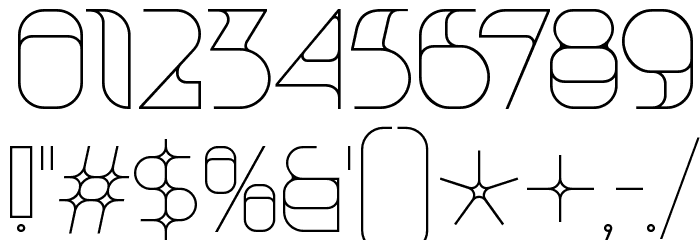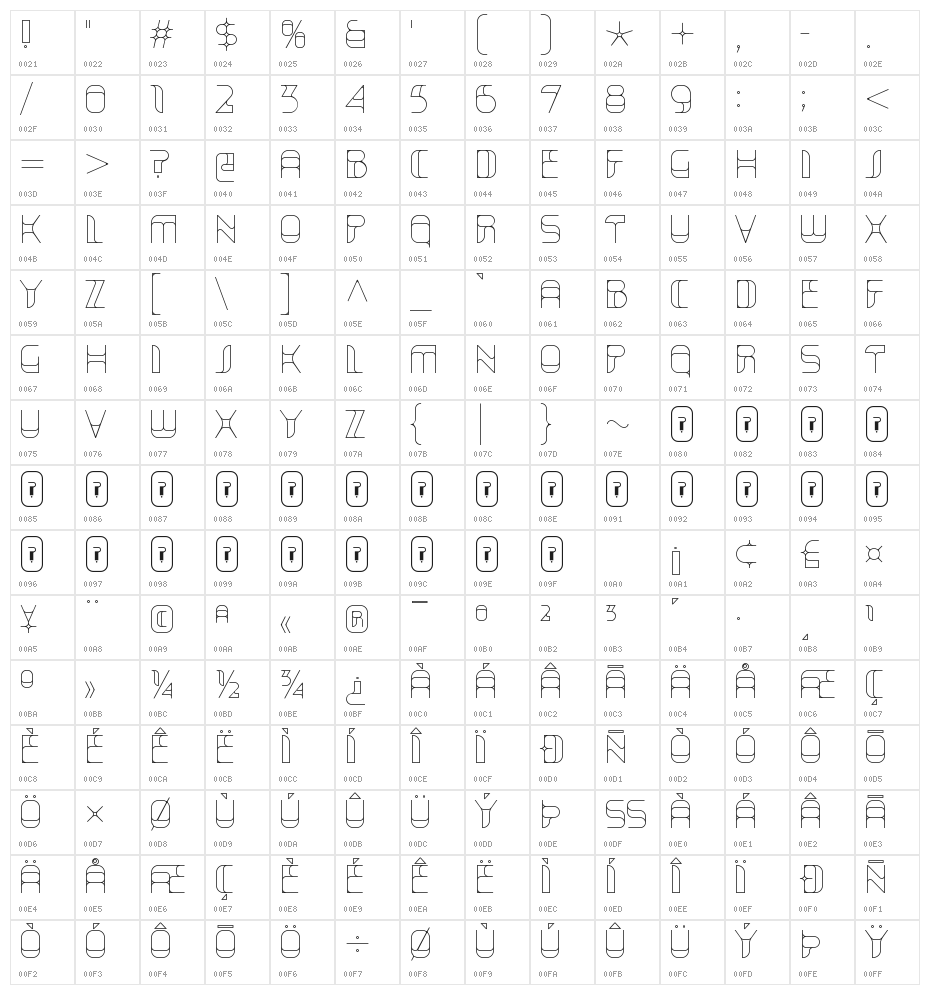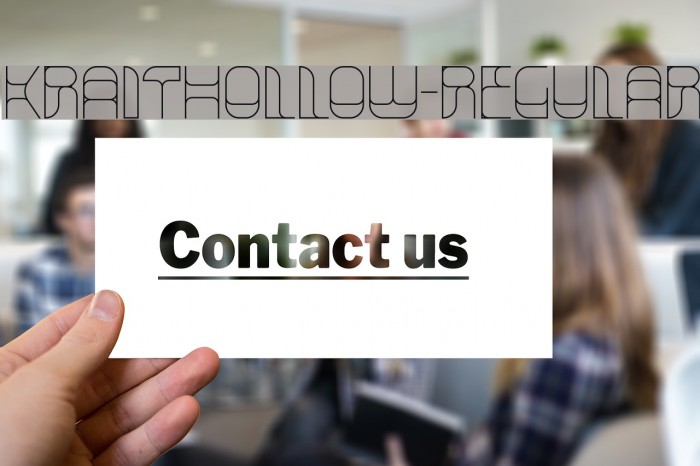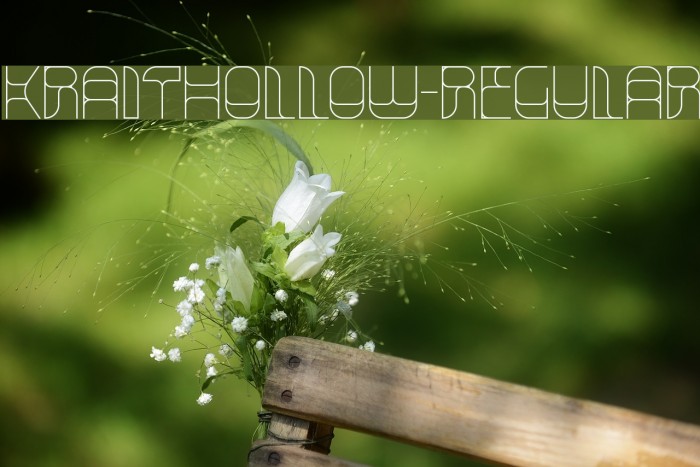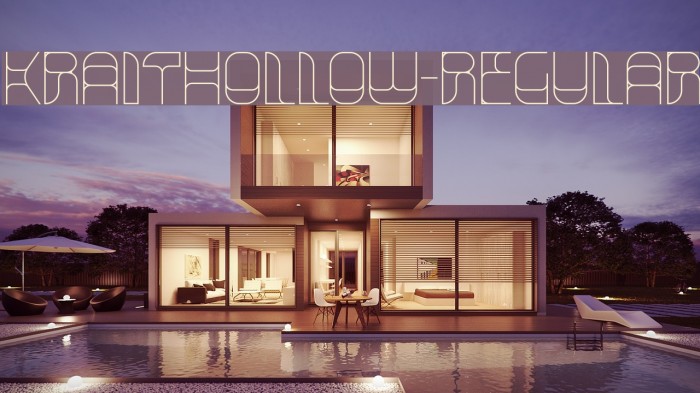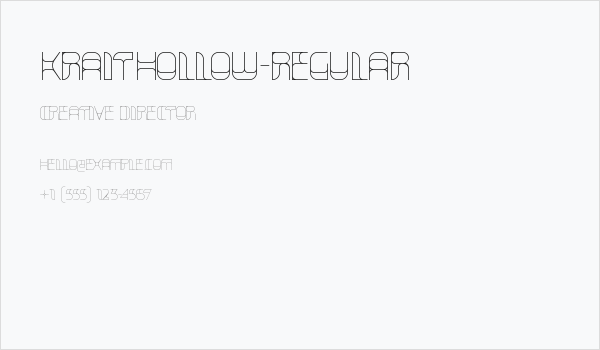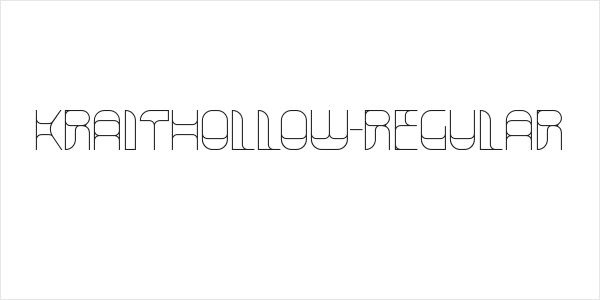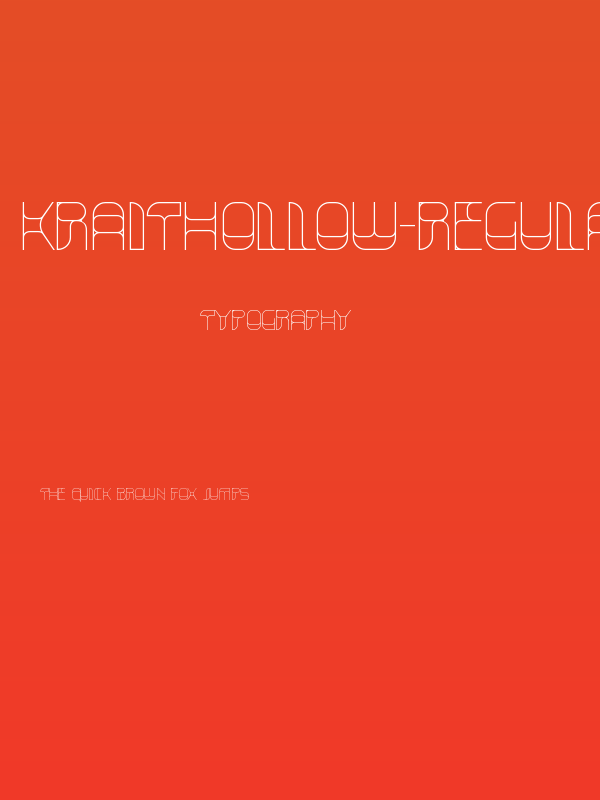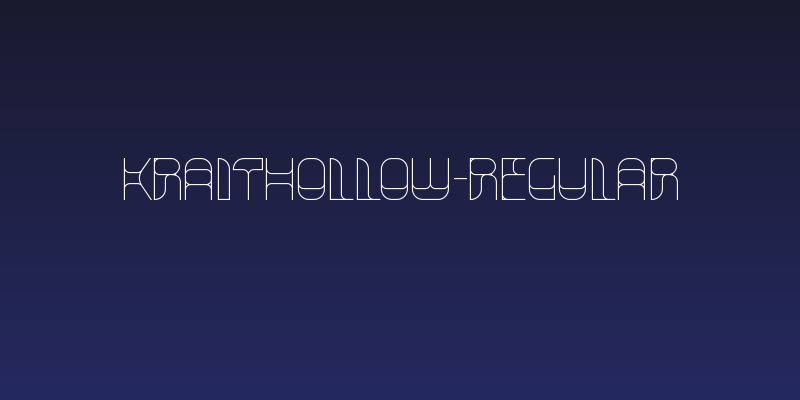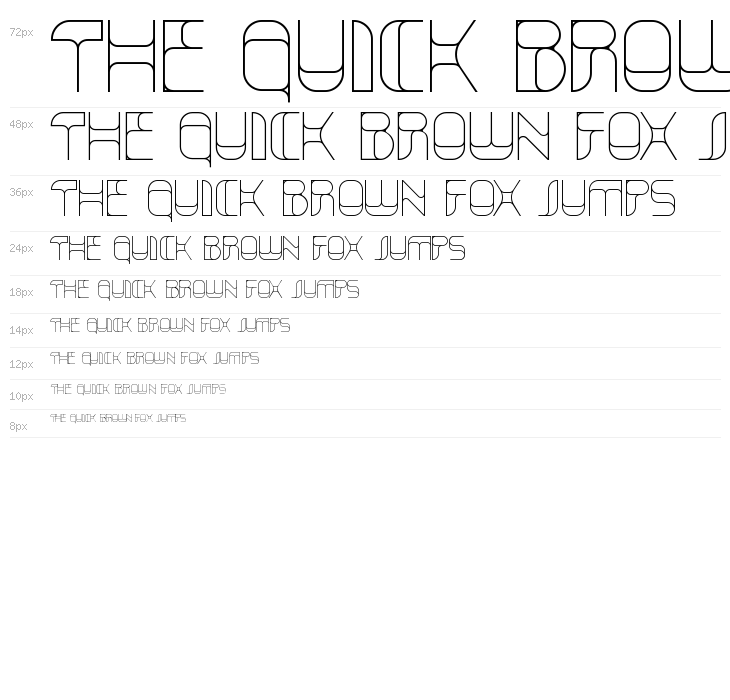
KraitHollow-Regular Font
KraitHollow-Regular Description
This font features a unique, geometric design with hollow, outlined characters that create a futuristic and modern aesthetic. The uppercase and lowercase letters maintain a consistent style, with clean lines and sharp angles that give it a distinct, technical appearance. The numerals and special characters follow the same design principles, ensuring a cohesive look across all glyphs. The font's structure is open and airy, making it suitable for projects that require a contemporary and innovative feel. Its distinctive style makes it stand out, while the uniformity of the characters ensures readability.
| Proposed Projects | Ideal for technology branding, sci-fi themed designs, modern posters, and innovative product packaging. |